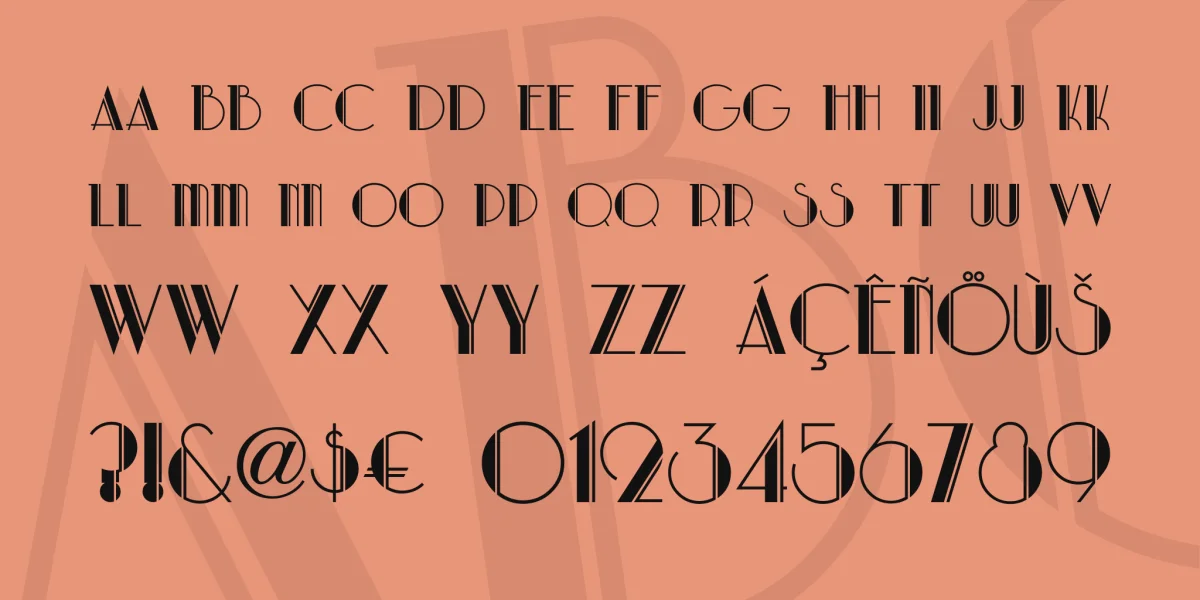
This font is a reworking of an old Mecanorma font, called simply Art Deco. My version clears up some of the inconsistencies in the original, and improves a few clumsy letterforms. Named after an elegant address in my old hometown, this face is suitable for any upscale occasion.